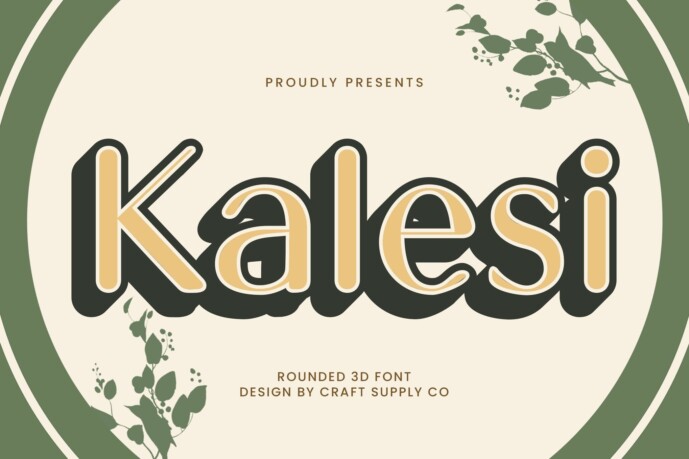
Kalesi Rounded Font
Kalesi Rounded 3D – Modern Softness with Dimensional Appeal
Elegant Minimalism in Rounded Form Kalesi Rounded 3D is a modern sans-serif font that blends minimalism with a soft, approachable character. Its smooth, rounded corners and balanced proportions give it an elegant and friendly tone, ideal for contemporary designs that emphasize clarity, warmth, and sophistication.
Refined 3D Effect for Visual Impact What sets Kalesi Rounded 3D apart is its subtle yet striking 3D effect, adding depth and dimensionality without overpowering the font’s clean aesthetic. This enhancement creates a captivating visual presence that feels both modern and refined—perfect for grabbing attention in a tasteful and professional way.